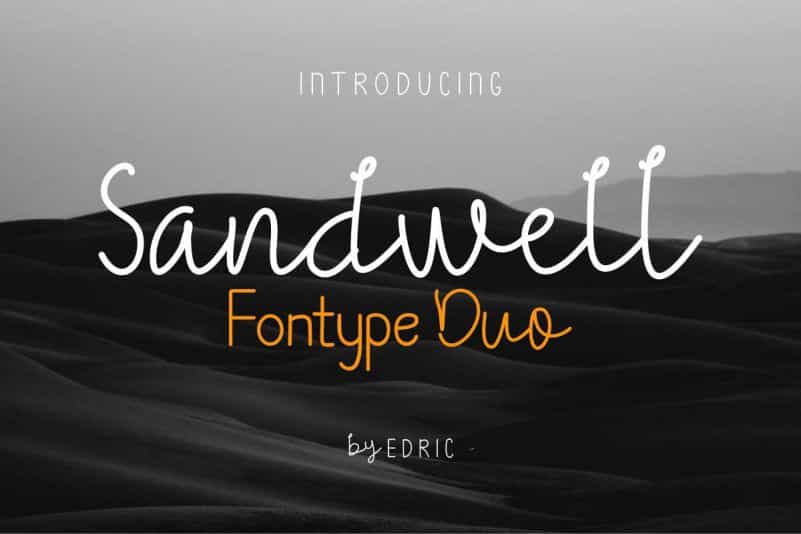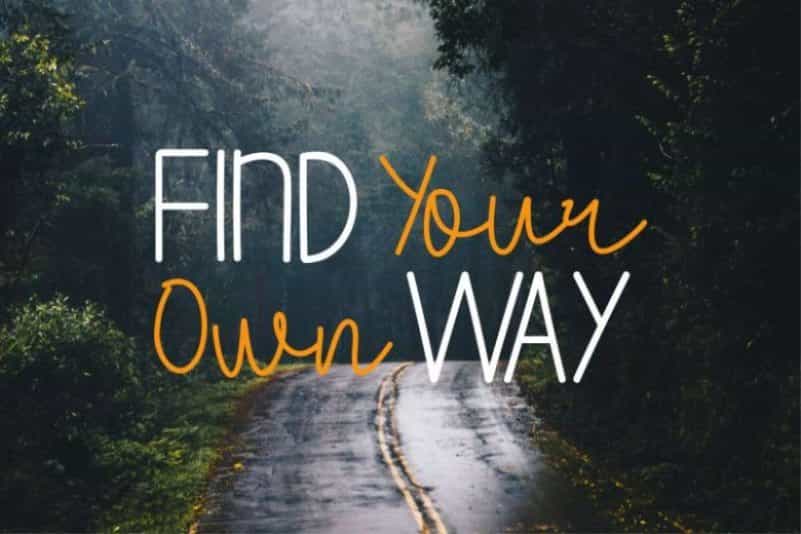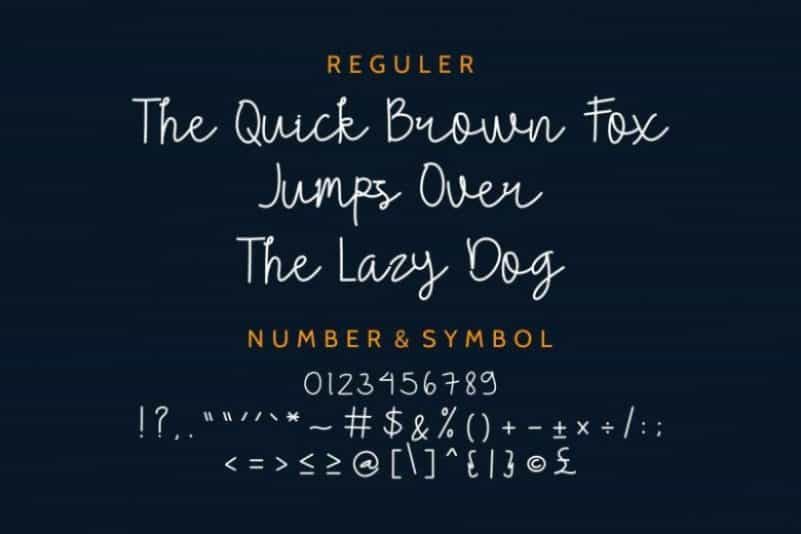
Discover Sandwell Duo Font, part of the Sans Serif Handwritten collection—a versatile and unique font perfect for adding a personal touch to your projects. Download it for free and enjoy crafting designs with style, from invitations to social media posts. This font is available exclusively for personal use, giving you the freedom to create without limits. Unlock your creativity with Sandwell Duo Font today!
Sandwell is a fresh font duo. It has a particular, sophisticated and stylish glyphs. It also supports multilingual accents.